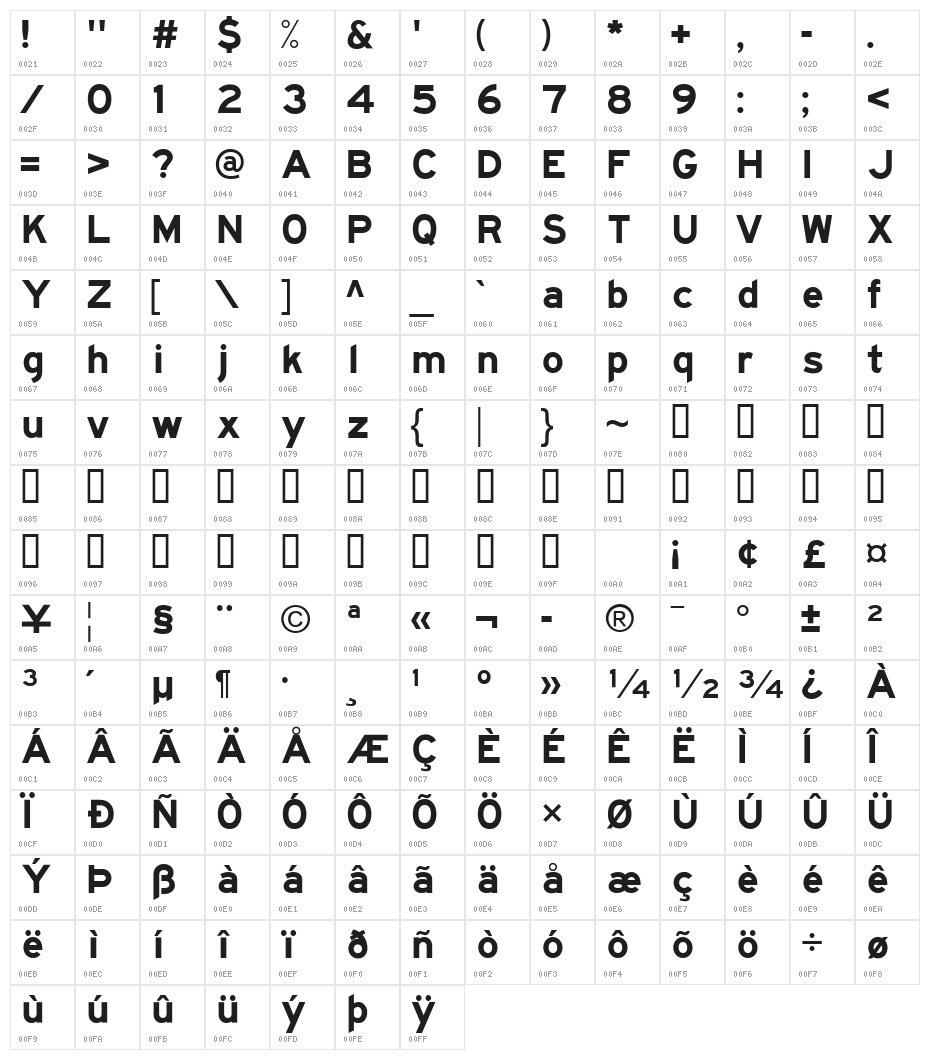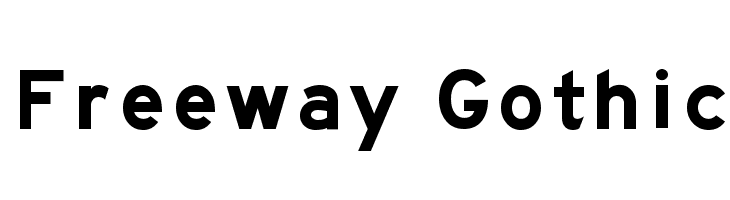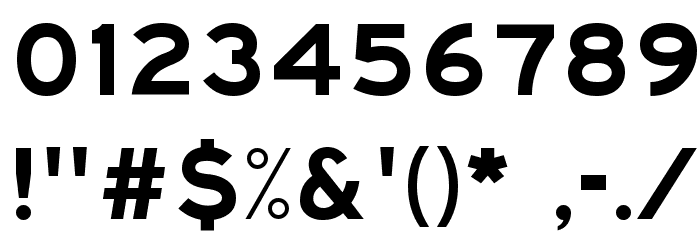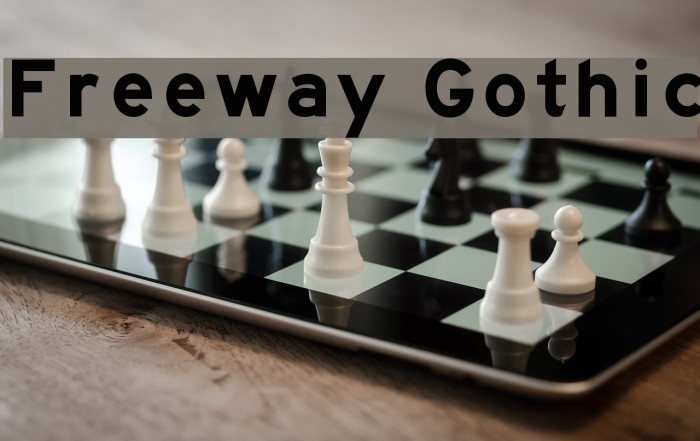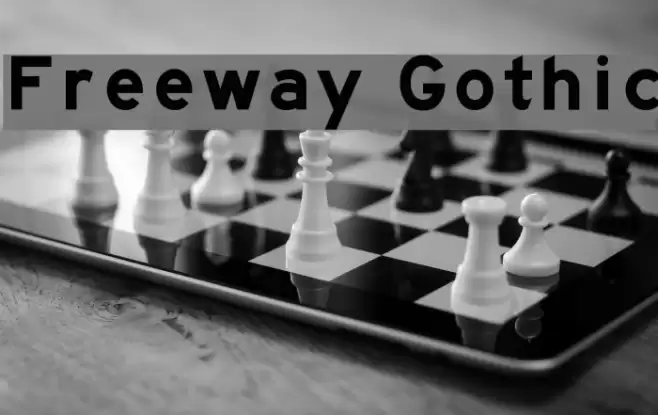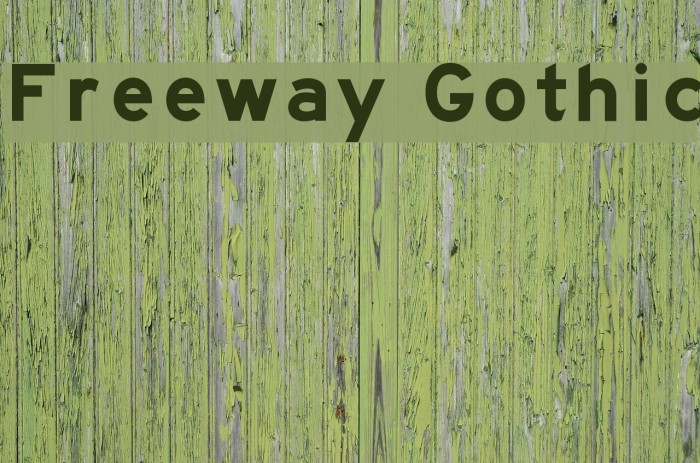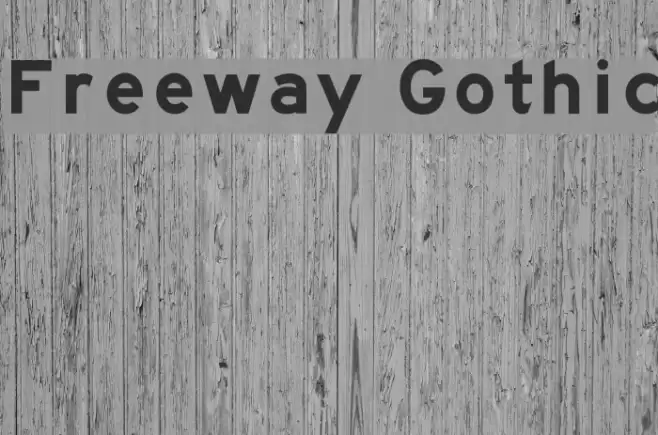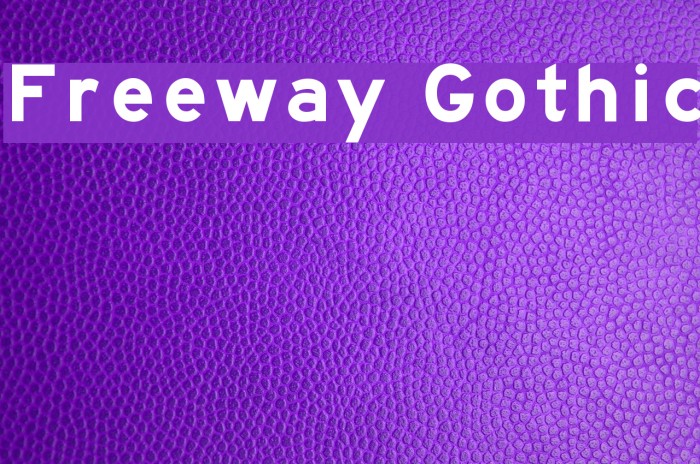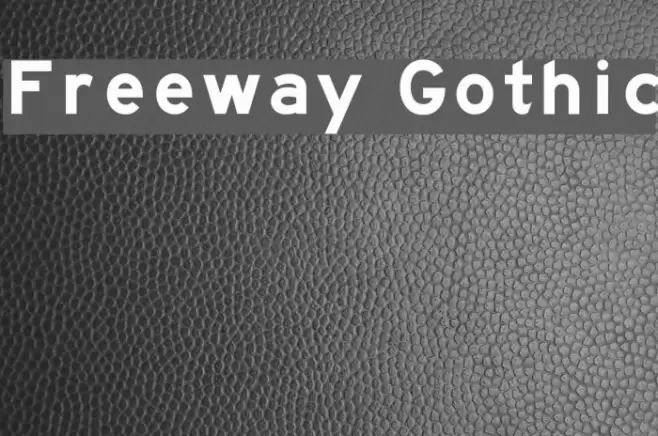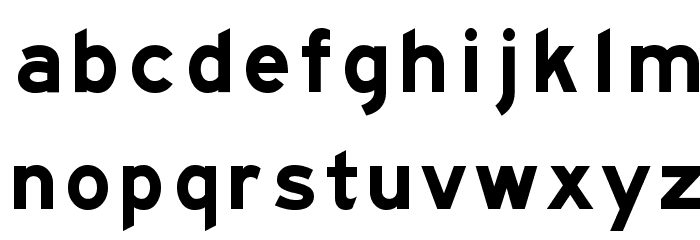
Freeway Gothic Font
Freeway Gothic Description
This typeface features a bold and modern design with clean, straight lines and a geometric structure. The uppercase letters are uniform in height, creating a strong visual impact. The lowercase letters maintain a consistent style, with rounded edges that soften the overall appearance. The numerals are clear and legible, making them suitable for various applications. The special characters are well-defined, adding versatility to the font. Its simplicity and clarity make it ideal for signage and display purposes.
| Use Case | Headlines, Signage, Logos |
| Proposed Projects | Ideal for highway signage, advertising, branding, and any project requiring clear and impactful text. |